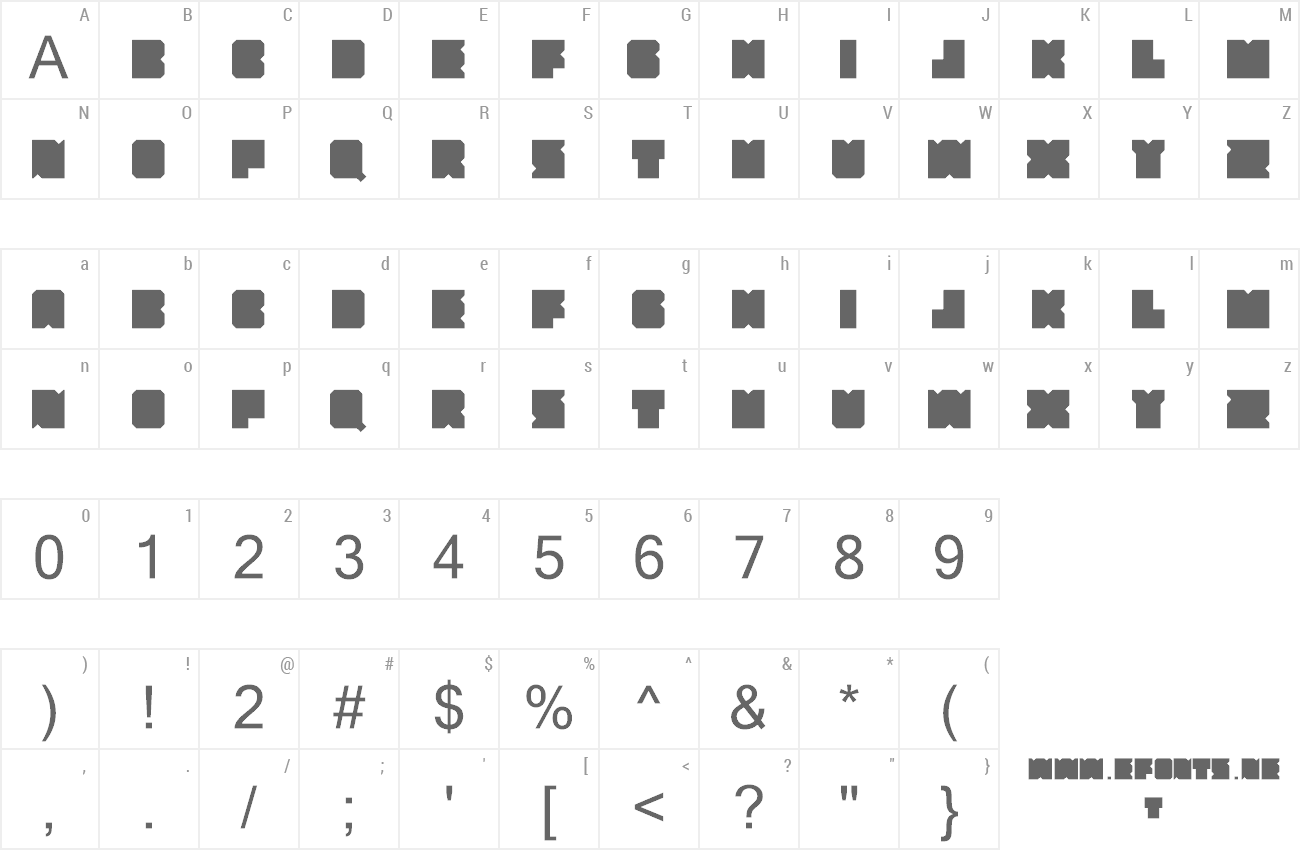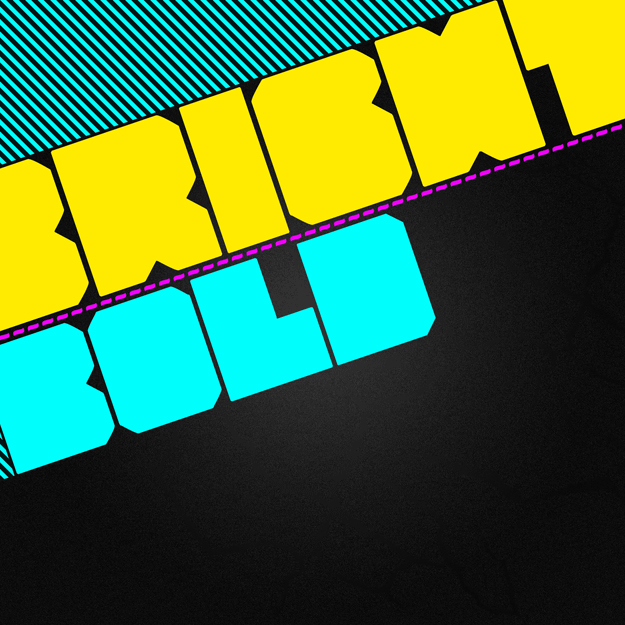
| Font name: | Lumio |
| Author: | Jonathan Sipkema |
| Note by Jonathan Sipkema | |
This is my first font, and its a header/title font, so thats why there are no punctuation's included. Hope you like it. |